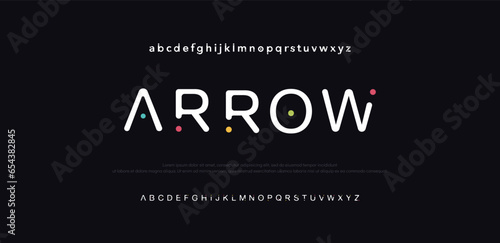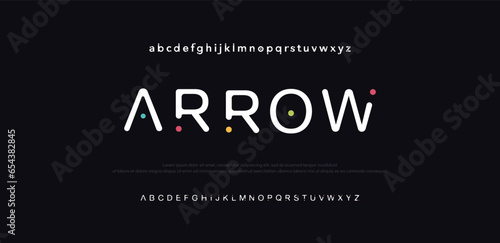
Arrow Modern abstract digital alphabet font. Minimal technology typography, Creative urban sport fashion futuristic font and with numbers. vector illustration